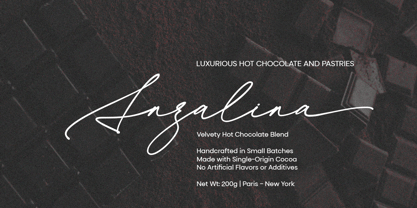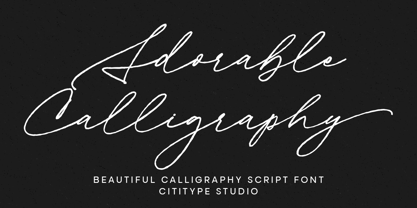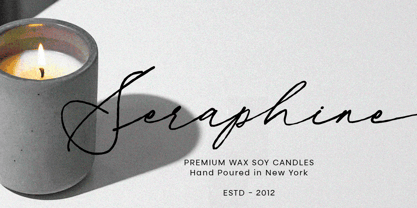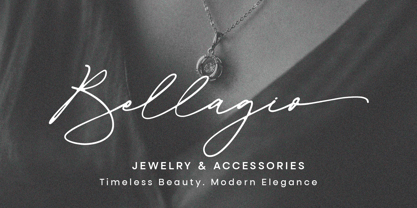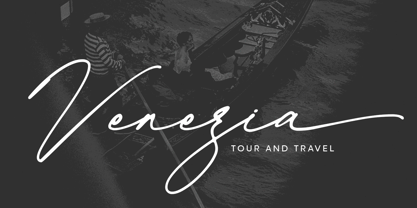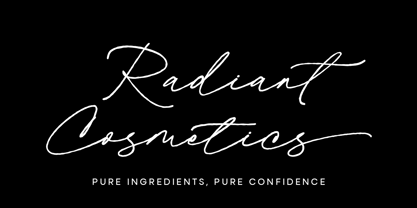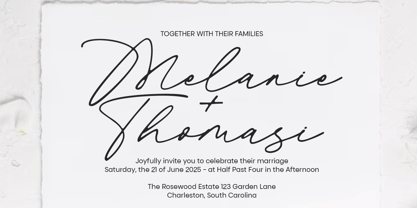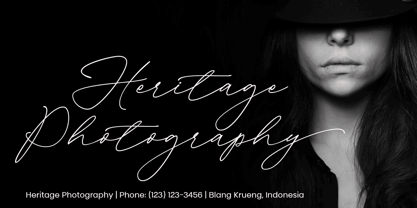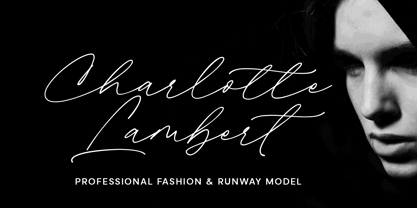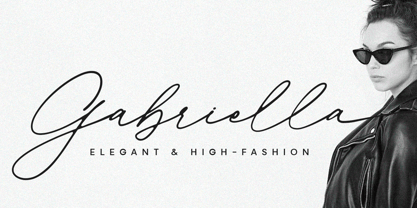
Adorable Calligraphy
by Cititype
The Adorable Calligraphy Font Family was designed by Muhammad Ridha Agusni, Siti Saribanon Nurjannah and published by Cititype. Adorable Calligraphy contains 4 styles and family package options. More about this family
Introducing Adorable Calligraphy, a sweet and stylish modern calligraphy font family designed to bring a touch of charm, elegance, and playful personality to your creative projects. Inspired by the grace of handwritten letters and the chic energy of modern femininity, this font is perfect for designers and brands who want to create something truly special.
Adorable Calligraphy features four carefully crafted styles Light, Regular, Rough, and Smooth , each offering its own distinct feel while keeping the same graceful essence. The Light style is soft and airy, ideal for delicate designs. Regularprovides a clean, balanced look suitable for everyday elegance. Rough has an organic, hand-drawn texture for an authentic and expressive feel, while Smooth delivers a polished and modern finish that’s perfect for high-end branding.
Whether you're working on fashion labels, beauty packaging, wellness products, wedding stationery, or even a stylish corporate identity, Adorable Calligraphy adds a gentle, feminine touch that’s both professional and personal. It’s a font that doesn’t just type, it tells a story, making your words feel warm, intentional, and beautifully unique.
Let Adorable Calligraphy become the signature of your design, elegant, confident, and of course, completely adorable.
Designers: Muhammad Ridha Agusni, Siti Saribanon Nurjannah
Foundry: Cititype